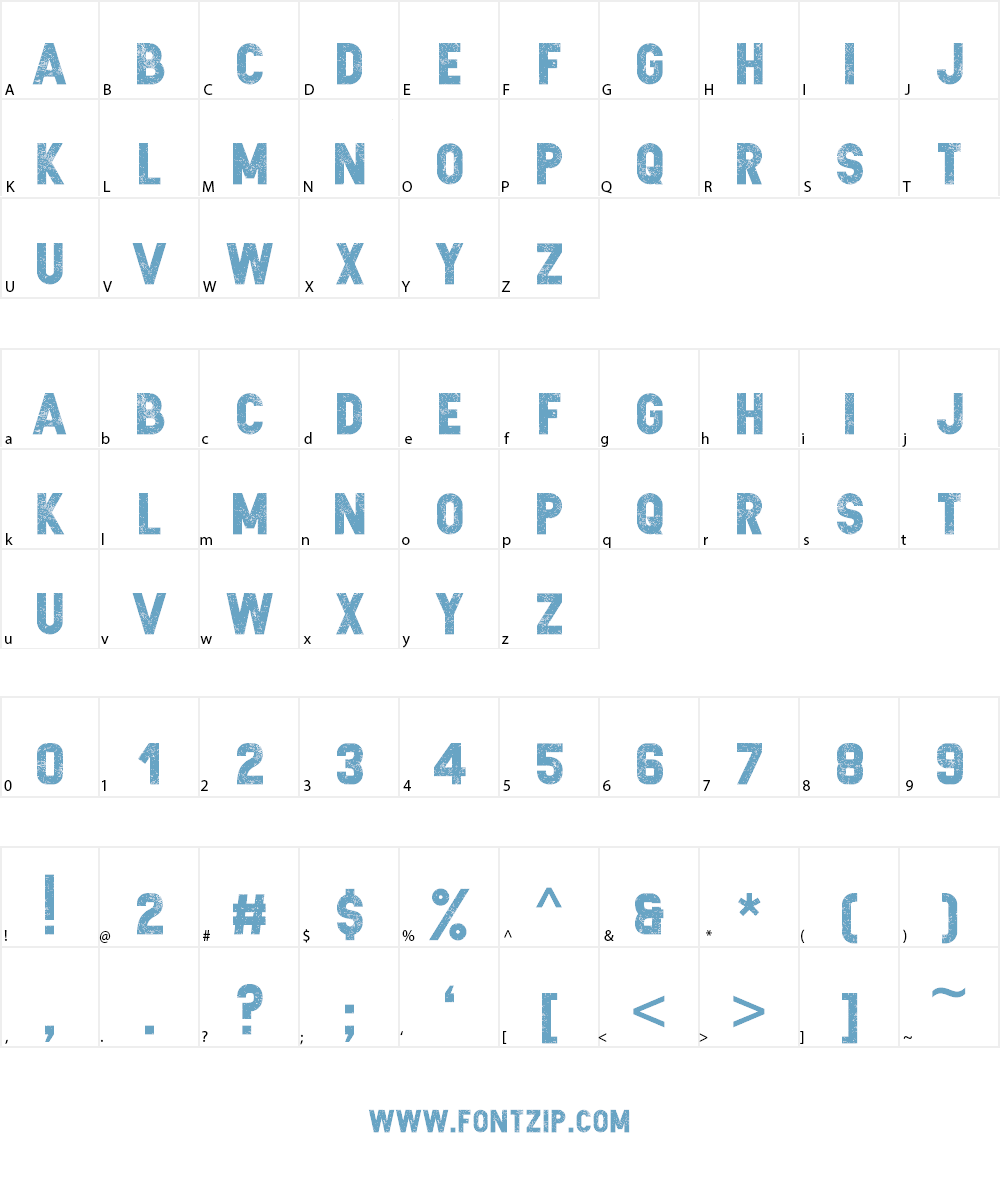
This source is born through a dream, that's why its name. It is a simple source and worn style, given its simplicity and good esthetics, can be used for logos and all kinds of graphic works.
Esta fuente nace a través de un sueño, por eso su nombre. Es una fuente sencilla y de estilo desgastado, dado a su simpleza y buena lectura, puede ser usada para logos y todo tipo de trabajos gráficos.